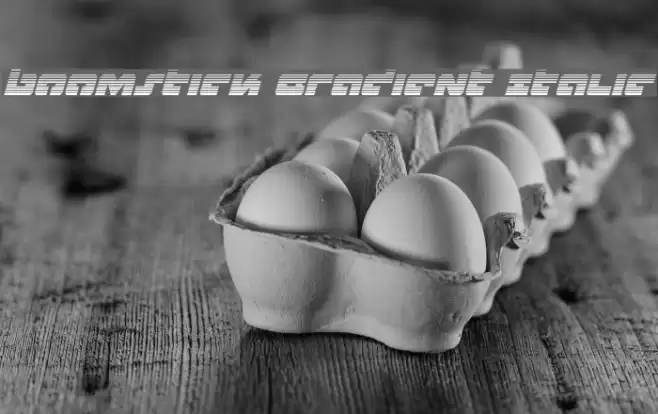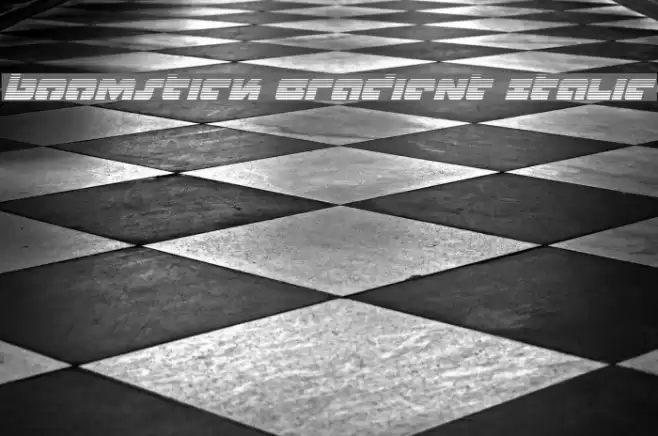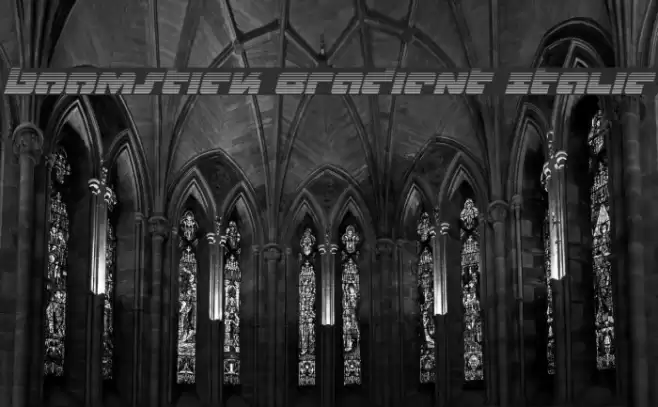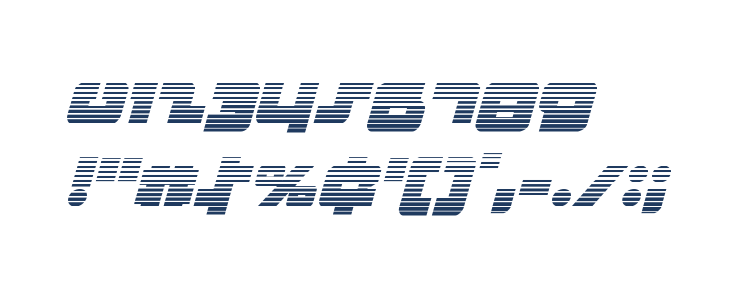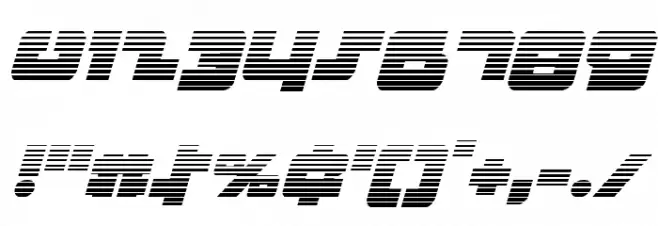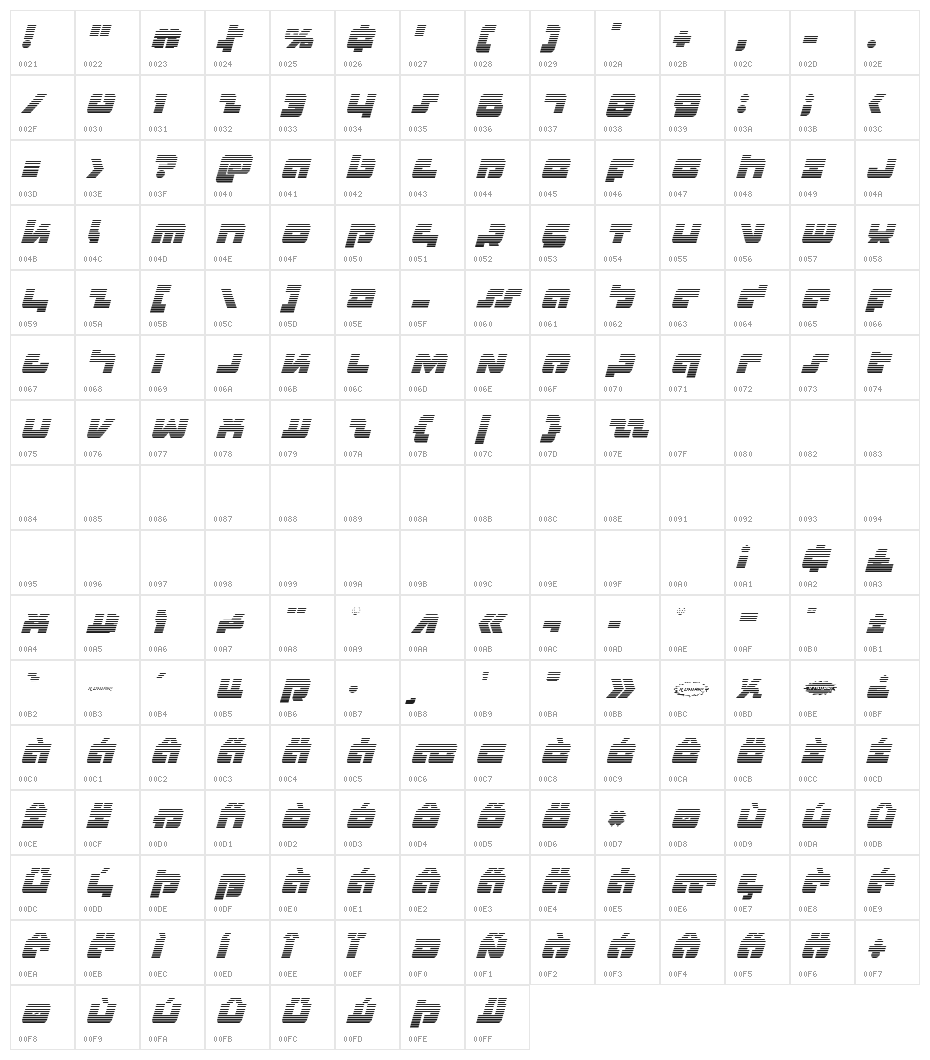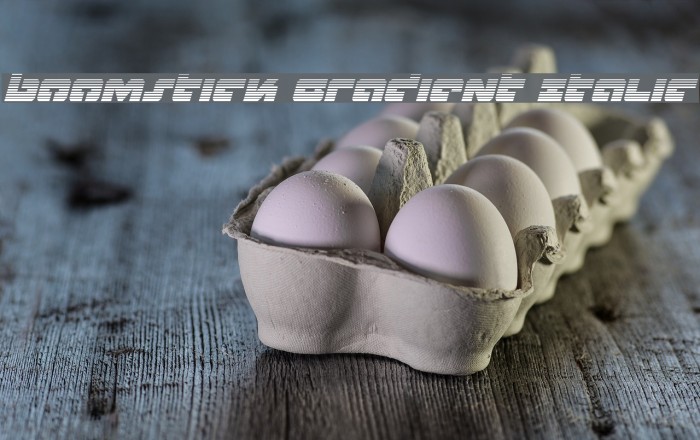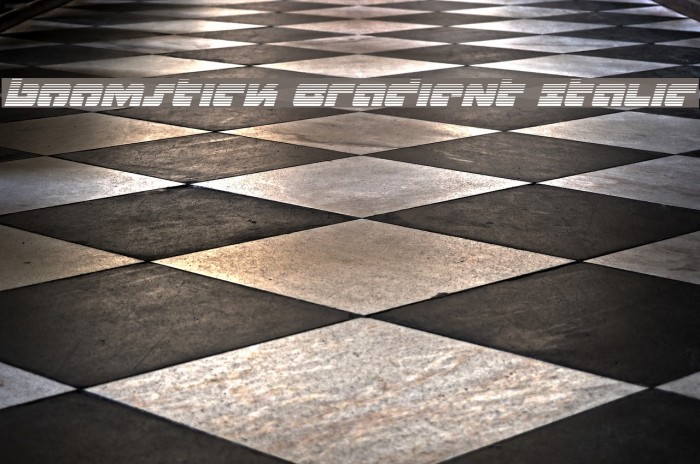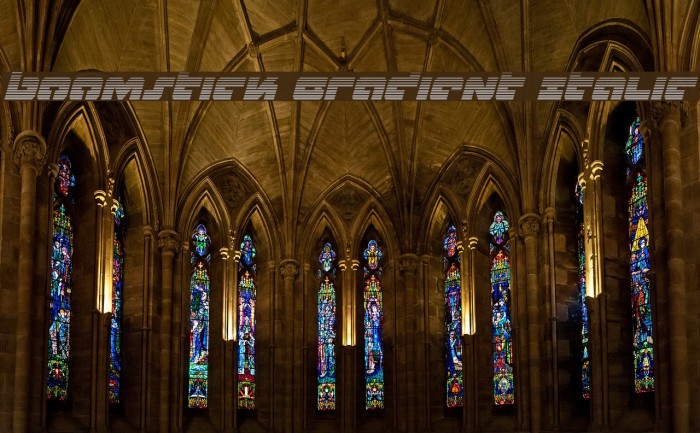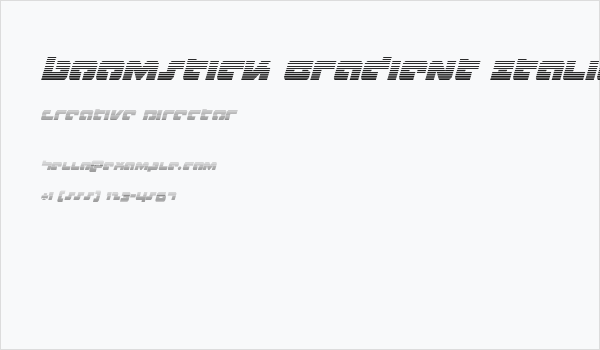
Boomstick Gradient Italic Font
Boomstick Gradient Italic Description
This font features a bold, italicized style with a distinctive gradient effect created by horizontal lines running through each character. The design is modern and dynamic, with a futuristic feel that is emphasized by the slanted, italicized form. The characters are wide and have a strong presence, making them suitable for attention-grabbing headlines or logos. The spacing between characters is tight, enhancing the compact and cohesive appearance of the text. The high contrast between the thick and thin lines adds to the visual impact, making it stand out in any design.
A bold, italicized font with a gradient effect and futuristic style from Sci-fi fonts.
- Proposed Projects: Ideal for futuristic branding, tech-related projects, sports team logos, or dynamic posters.
- Width: Expanded
- Character Spacing: Tight